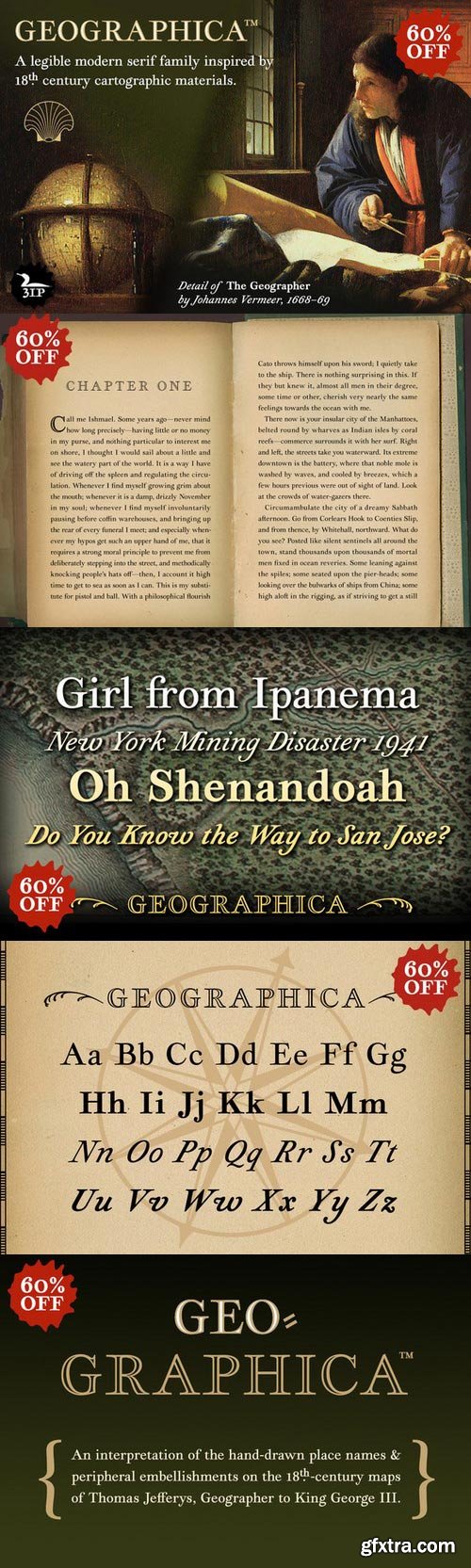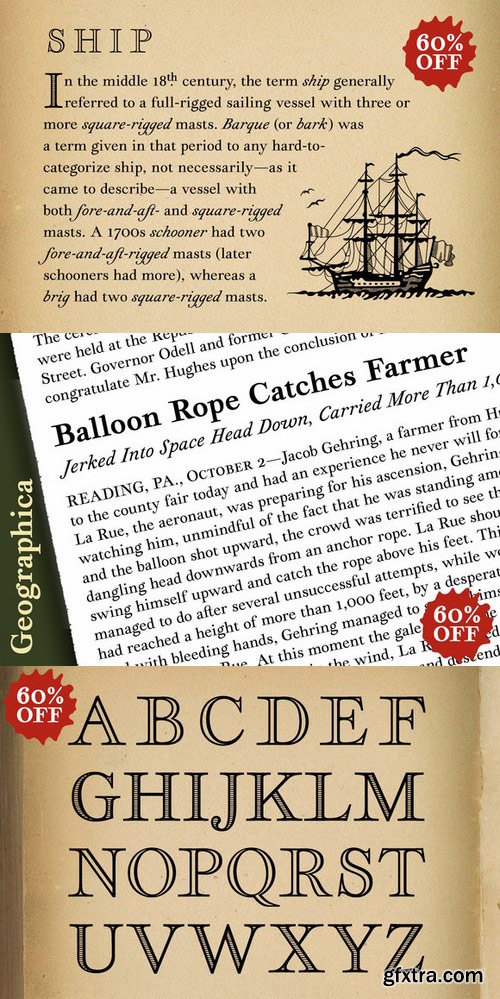
Thomas Jefferys (ca. 1710–1771) was the best-known map engraver in 18th-century England, chiefly because he won (and hyped) the title “Geographer to King George III.” Jefferys was more an engraver/publisher than a geographer, really, since he mostly relied on the cartographic materials of others. Still, his maps of the North American colonies were well known. Geographica is a four-style serif text-type family modeled after the neat hand-lettered place names and peripheral text on Jefferys’s maps. This legible typeface combines a hand-drawn warmth with a distinctly historical flair. With its long serifs and ample x-height, Geographica will add classic elegance to long blocks of text or display type, whether on paper or screen. OpenType features include small capitals and two stylistic sets of titling caps. Comes with a slew of unique cartographic ornaments, and offers full support for Central and Eastern European languages—more than 1,200 glyphs in all. LIMITED-TIME INTRODUCTORY DISCOUNT: Regularly $99, the Geographica family is available for just $39 through the end of May 2016.